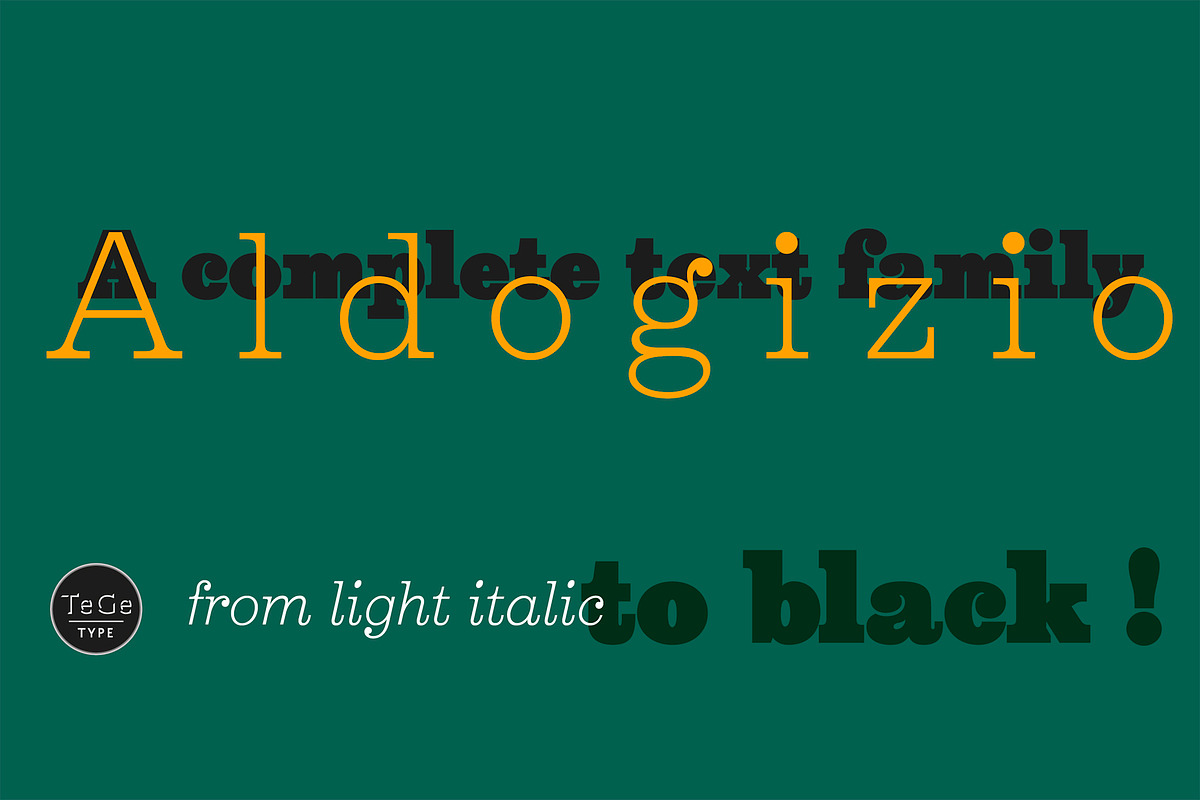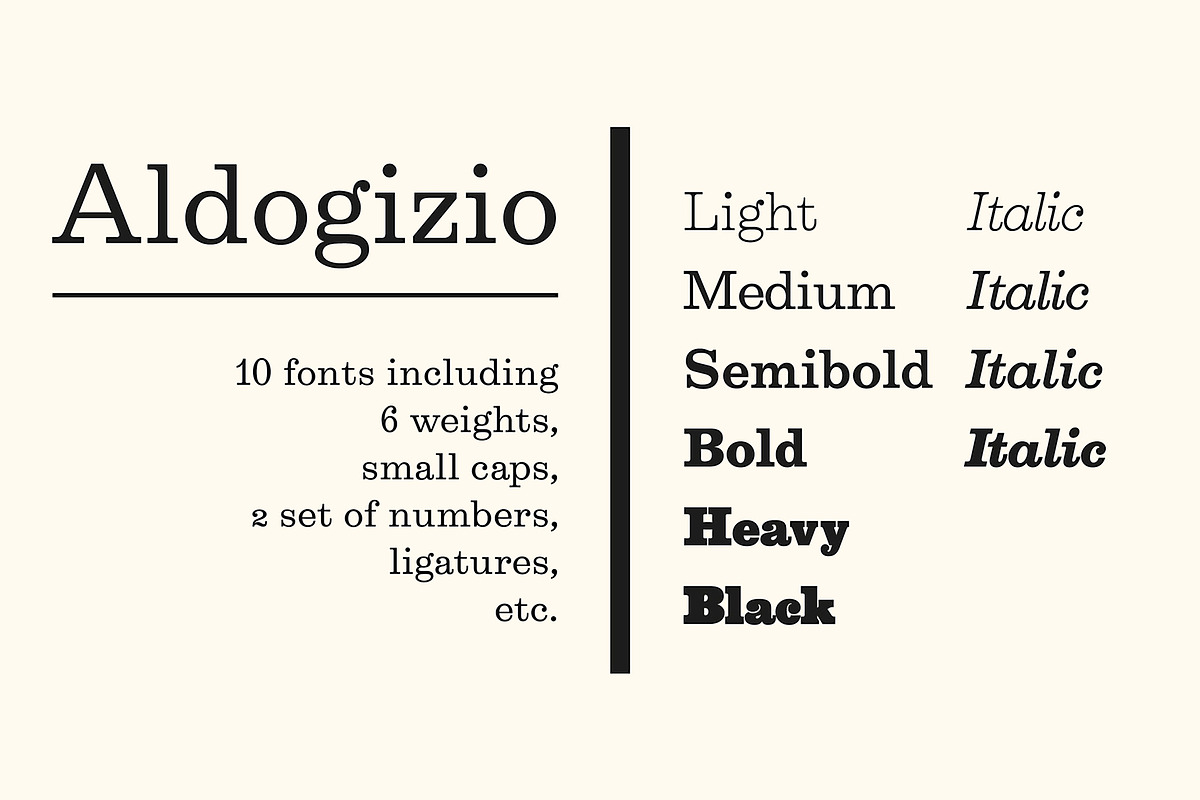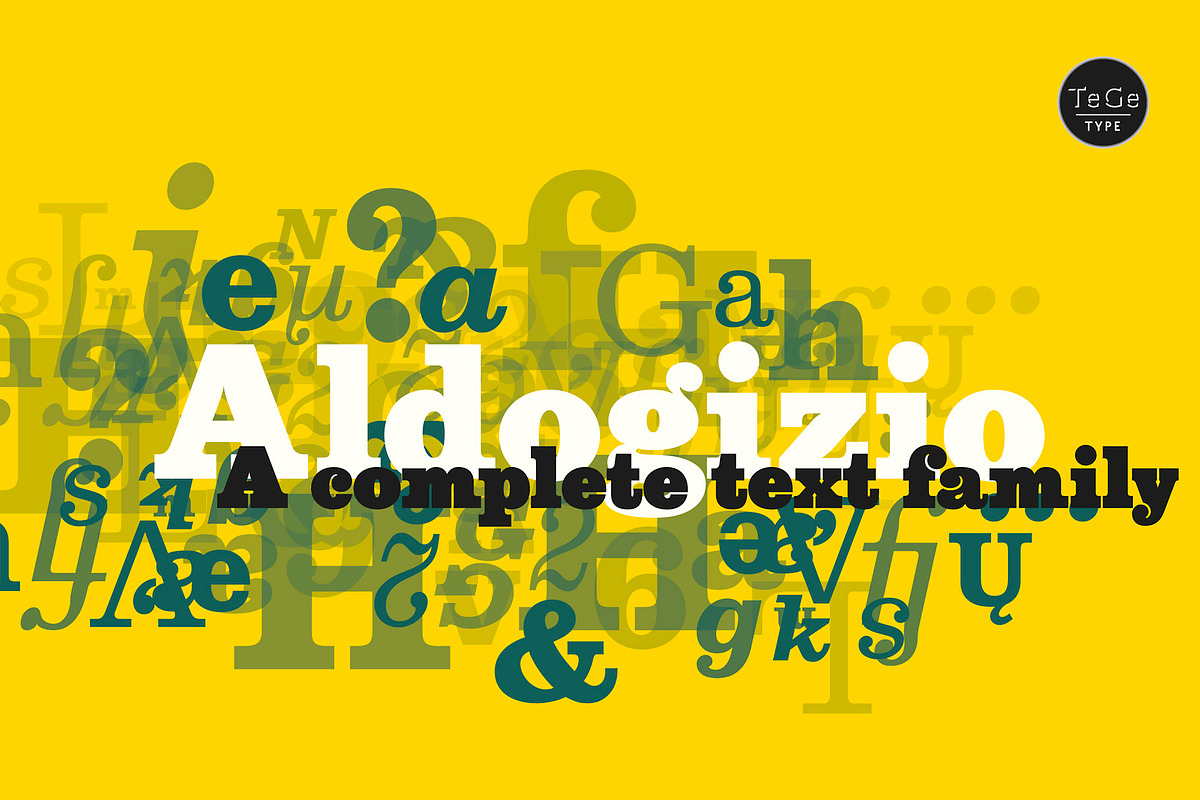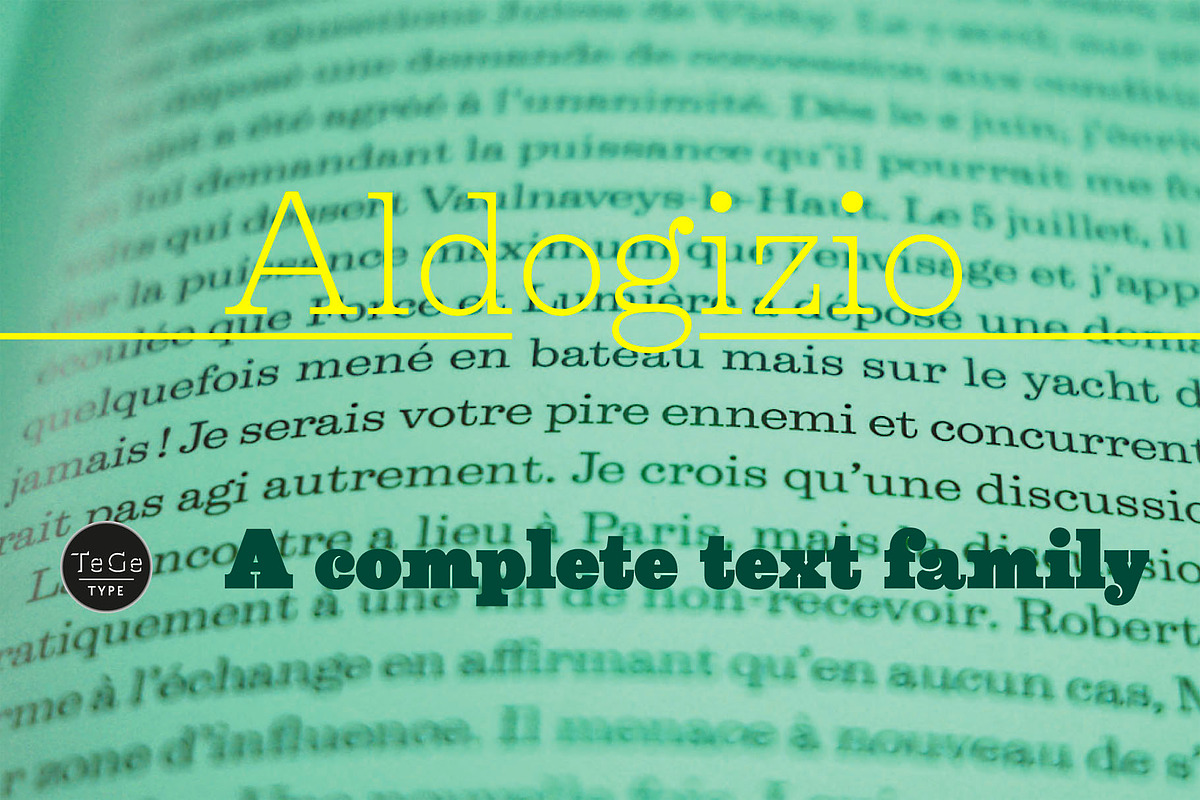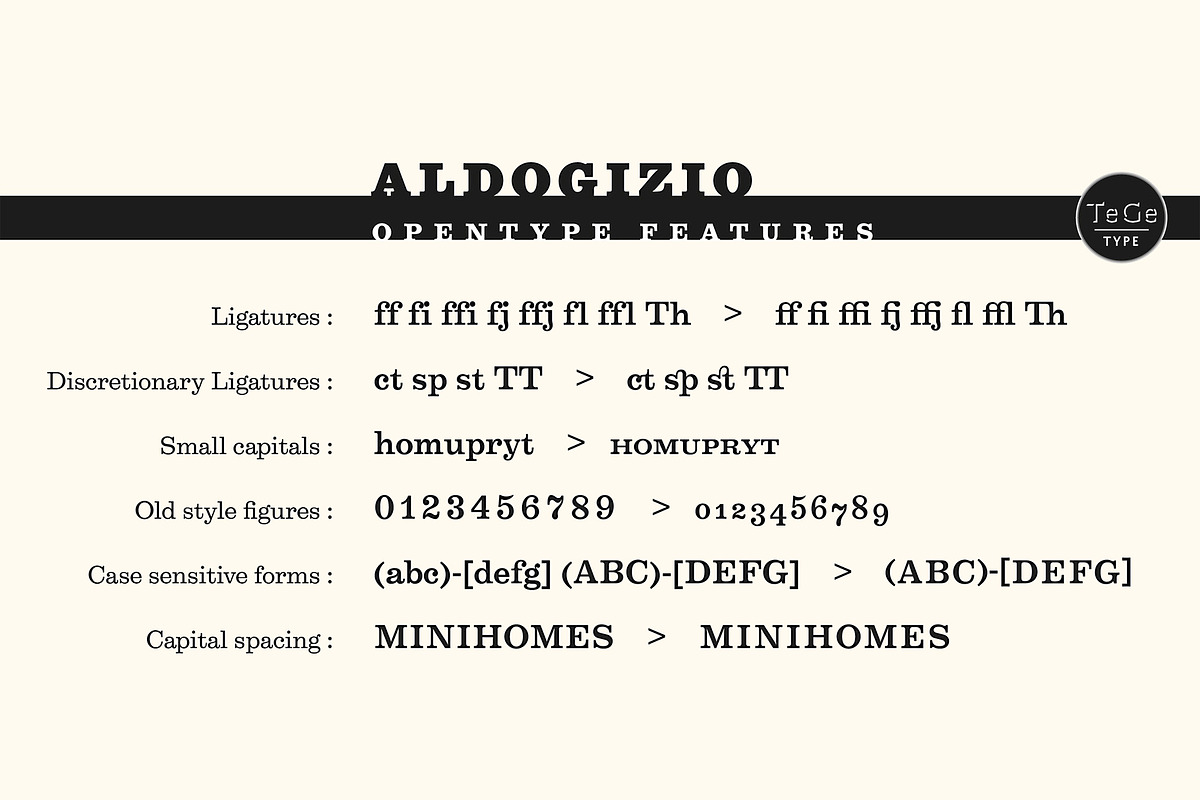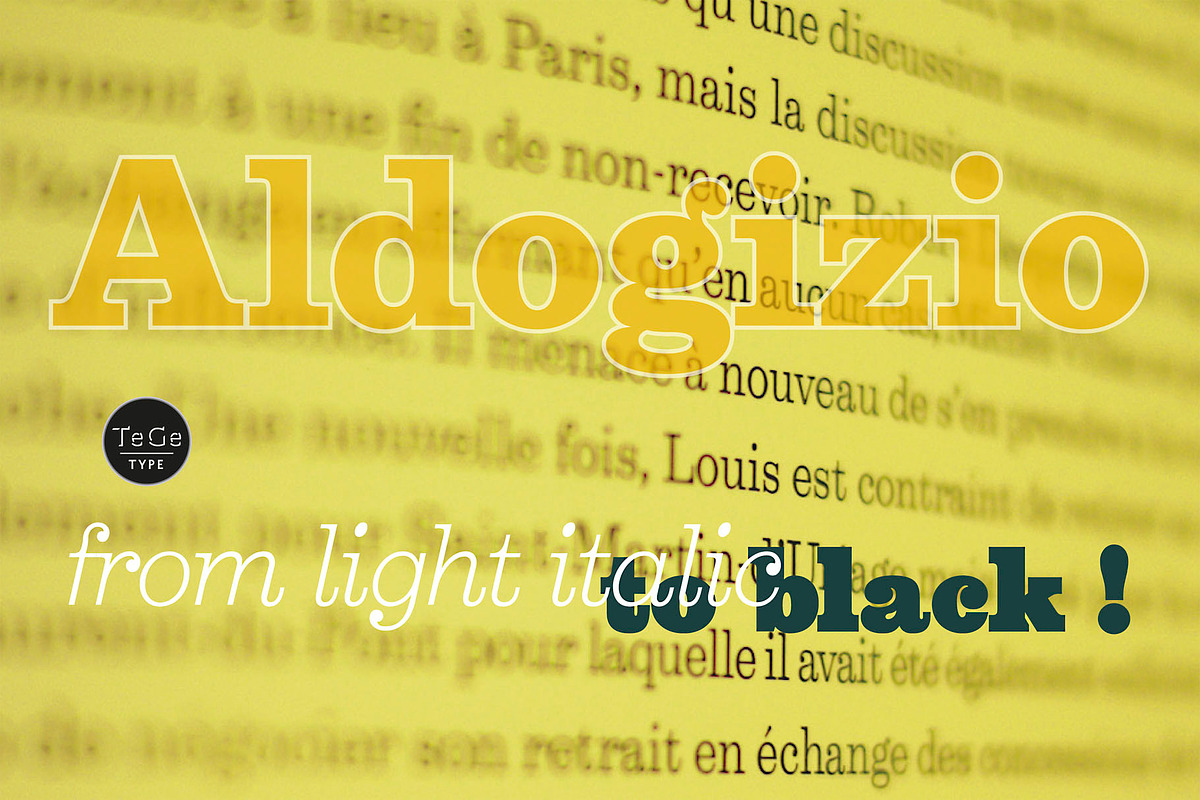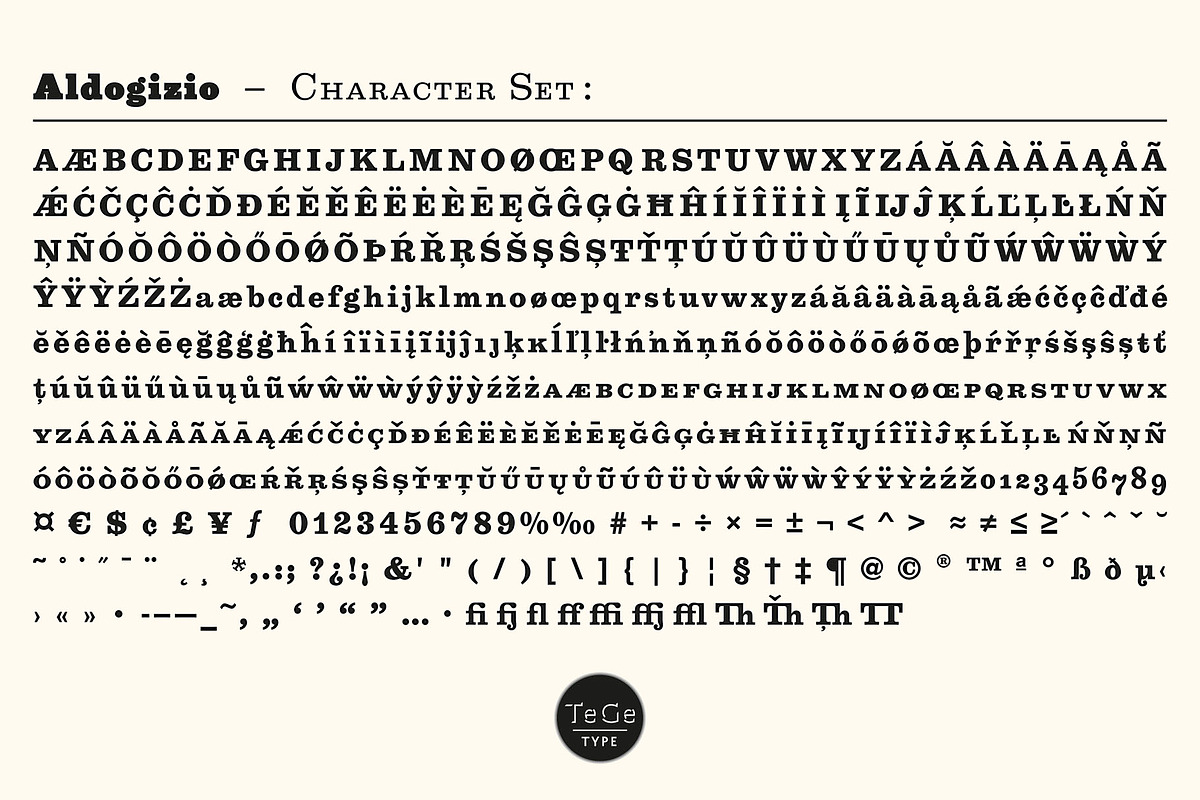
Aldogizio
The ALDOGIZIO family is a new slab-serifs typefaces family inspired by Aldo Novarese' Egizio. It can be use for text as for titling applications.